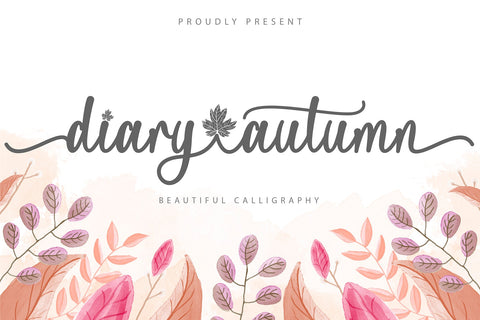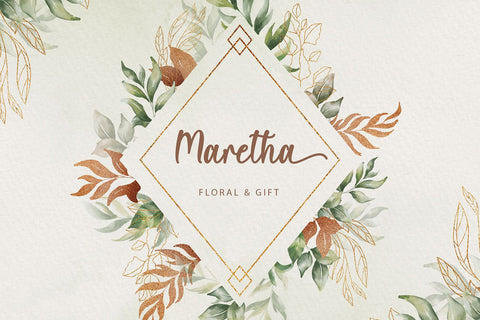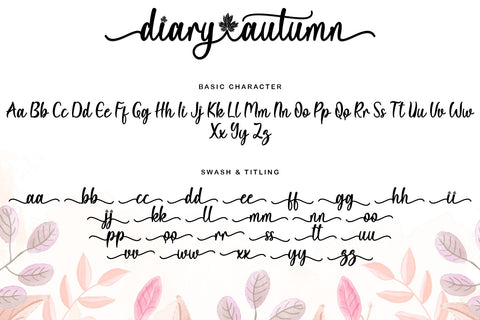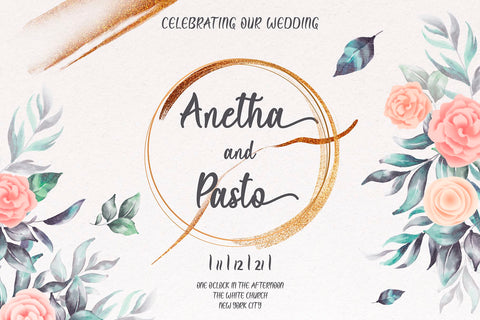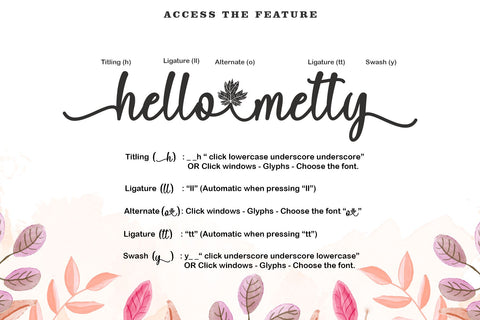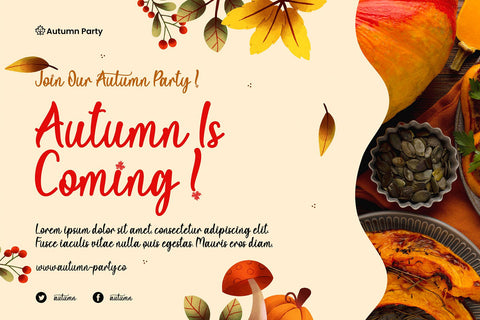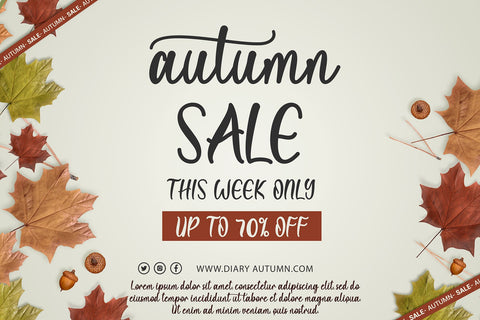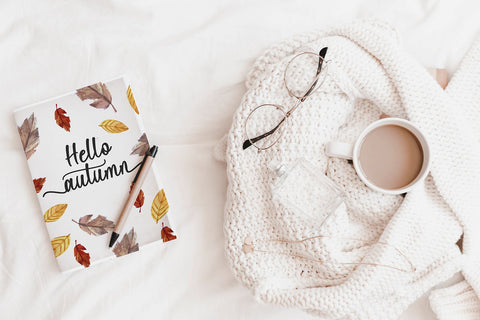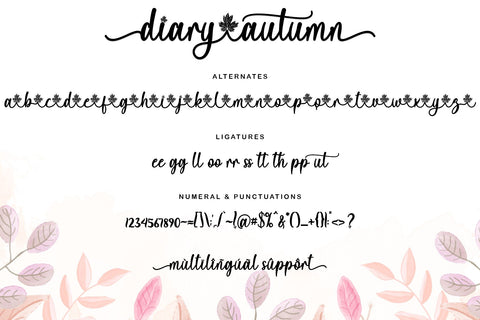
Diary Autumn
This font is named "Diary Autumn" with a modern calligraphy writing style. "Diary Autumn" is a font that can be used for any kind of work. This font is very beautiful and unique by combining the leaf shape in the letters. It is very easy to use and apply, because it has been specially designed. This font is equipped with basic characters, swash and titling, leaf alternates, ligatures, numerals and punctuations, and multilingual support.